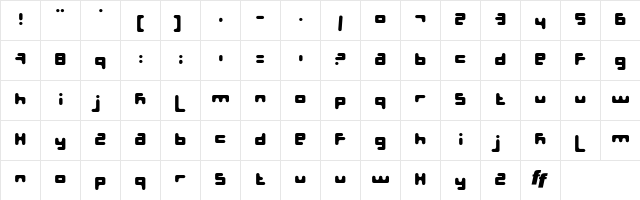
Fluffster Regular
Design Context for Fluffster Typeface
Fluffster is a composed and adaptable typeface that performs quietly and consistently across a wide range of design contexts.